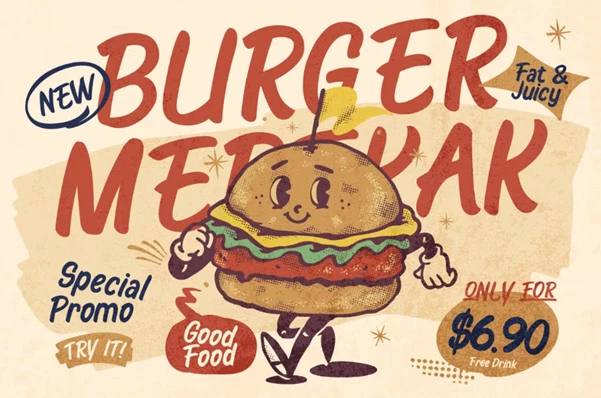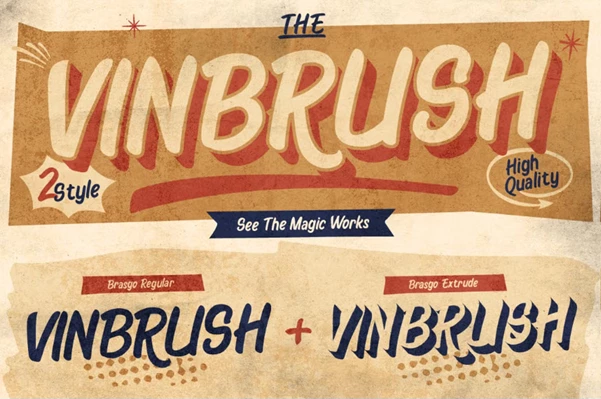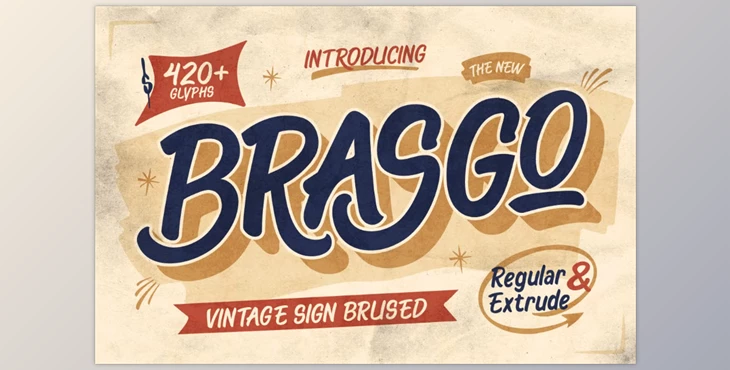
Brasgo Font:
Traditional and modern brush-style typefaces are blended beautifully in Brasgo font - a new release. Bold, wavy strokes give Brasgo its distinctive look, one that charms with nostalgia for classic aesthetics. With Regular and Extrude styles, Brasgo is versatile enough to be used for various creative projects.
"Brasgo Font" Samples: